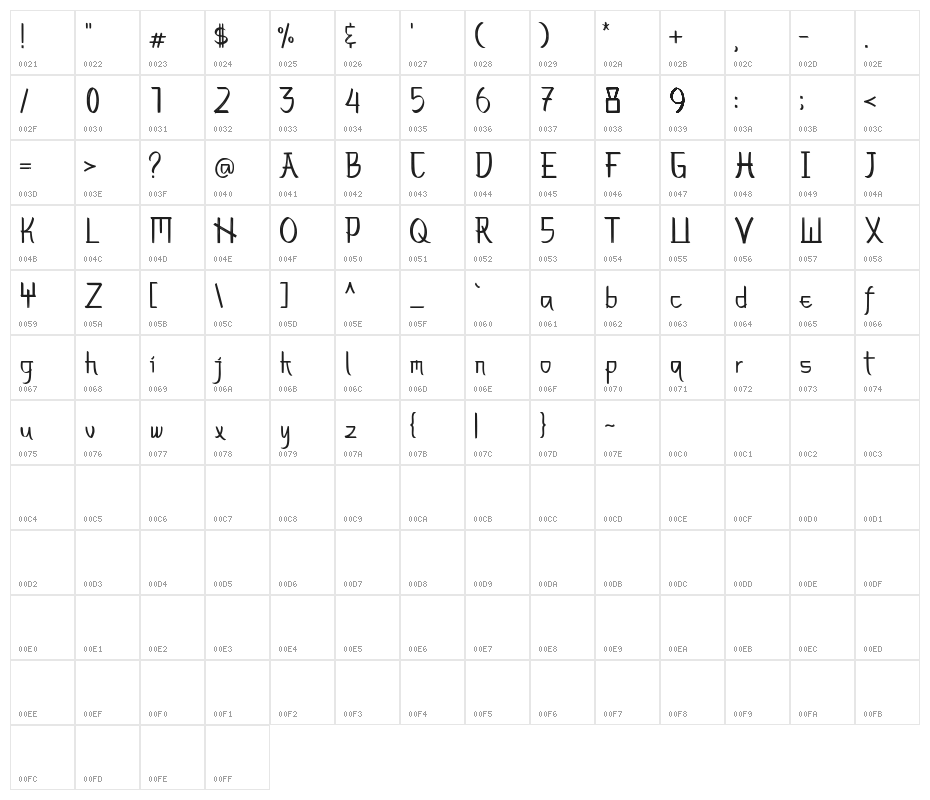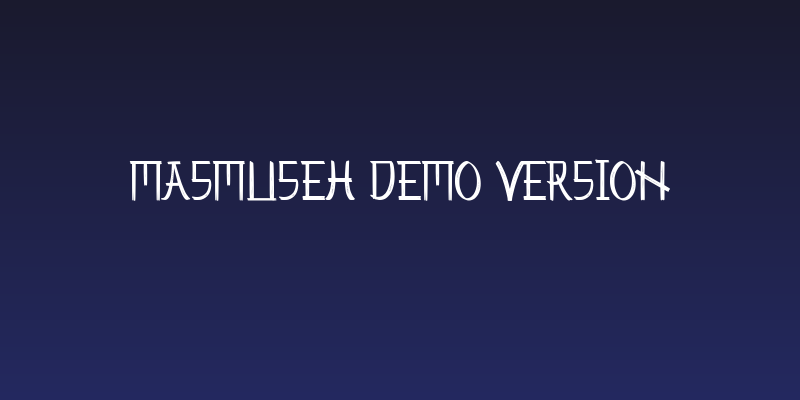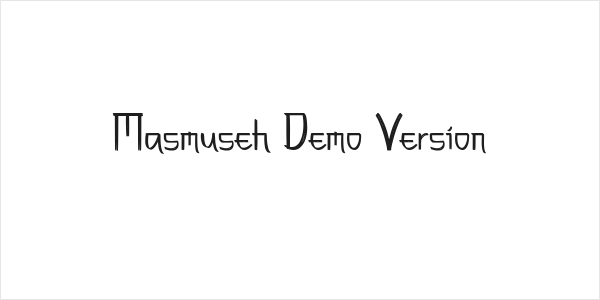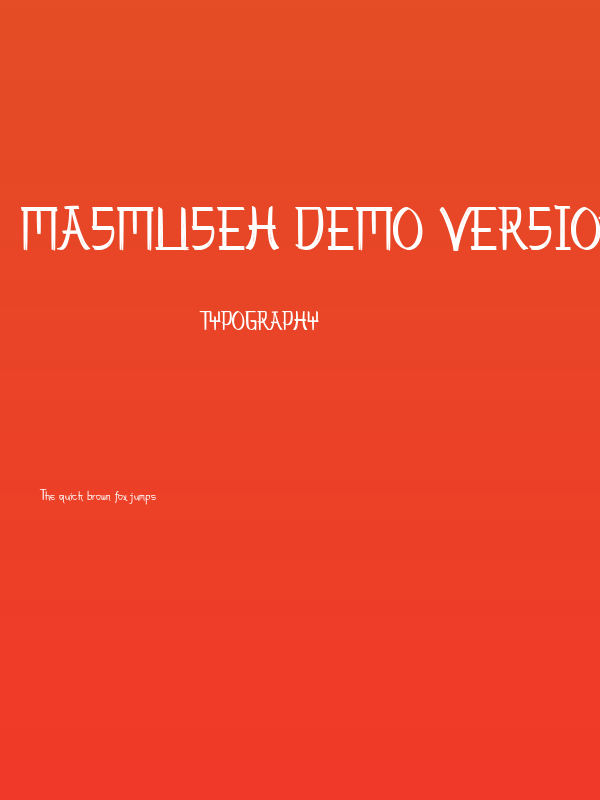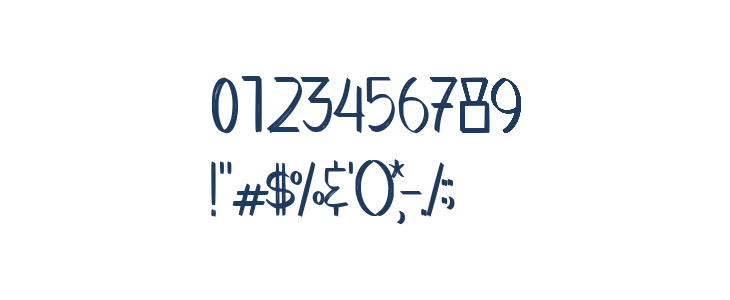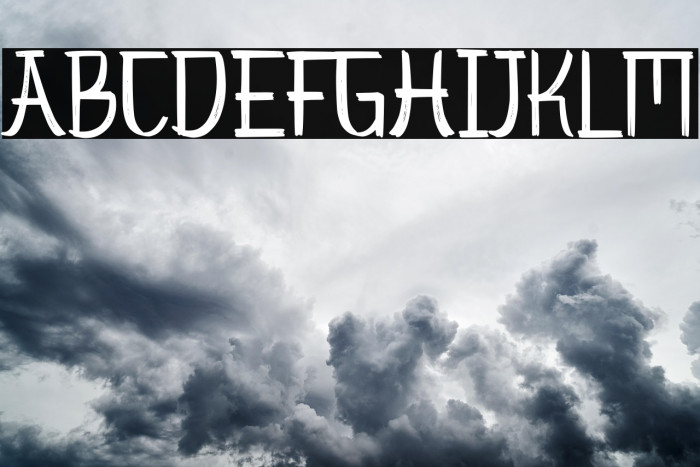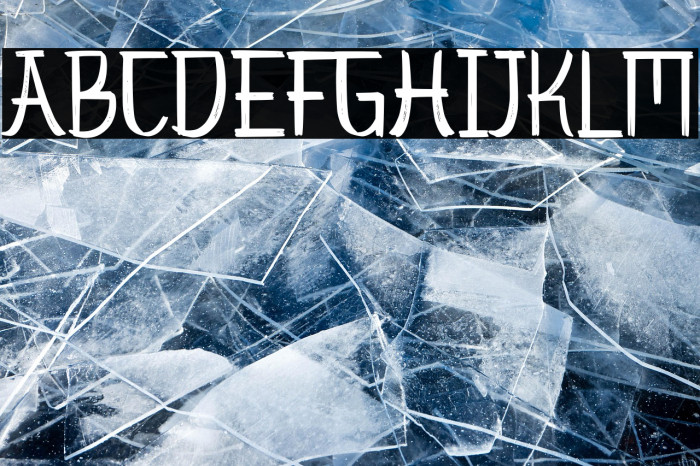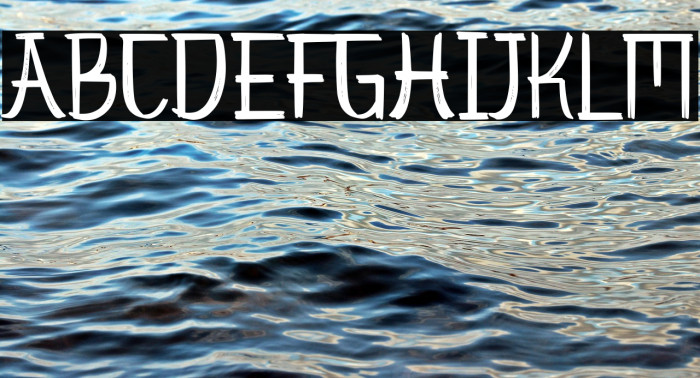
Masmuseh Demo Version Font
Masmuseh Demo Version Description
This font features a unique and artistic style with a hand-drawn appearance. The characters have a playful yet structured form, with elongated vertical strokes and slightly curved edges. The uppercase letters are bold and prominent, while the lowercase letters maintain a consistent flow with a slightly whimsical touch. Numbers and special characters are designed to match the overall aesthetic, providing a cohesive look. The font's distinct personality makes it suitable for creative projects that require a touch of individuality and flair.
| Overall Style | Artistic, Playful |
| Proposed Projects | Ideal for creative projects such as posters, invitations, branding, and artistic designs. |